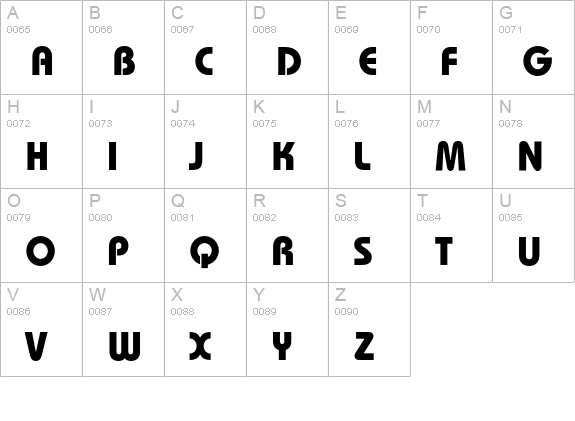
BordeauxHeavy Font Details
BordeauxHeavy is a striking and bold display font that commands attention with its strong, robust letterforms. This typeface exudes power and elegance, making it perfect for headlines, titles, and branding projects that require a touch of sophistication. The thick strokes and sharp edges of BordeauxHeavy give it a modern and edgy feel, while its clean lines ensure readability even at large sizes. What sets BordeauxHeavy apart is not only its impressive design but also the fact that it is available for free download at FontsMarket.com. This means that designers and creatives can easily access and use this high-quality font in their projects without any cost. Whether you're working on a poster, logo, or website, BordeauxHeavy is a versatile and impactful font that will elevate your design to the next level. Download it now and unleash the full potential of your creative endeavors with BordeauxHeavy.